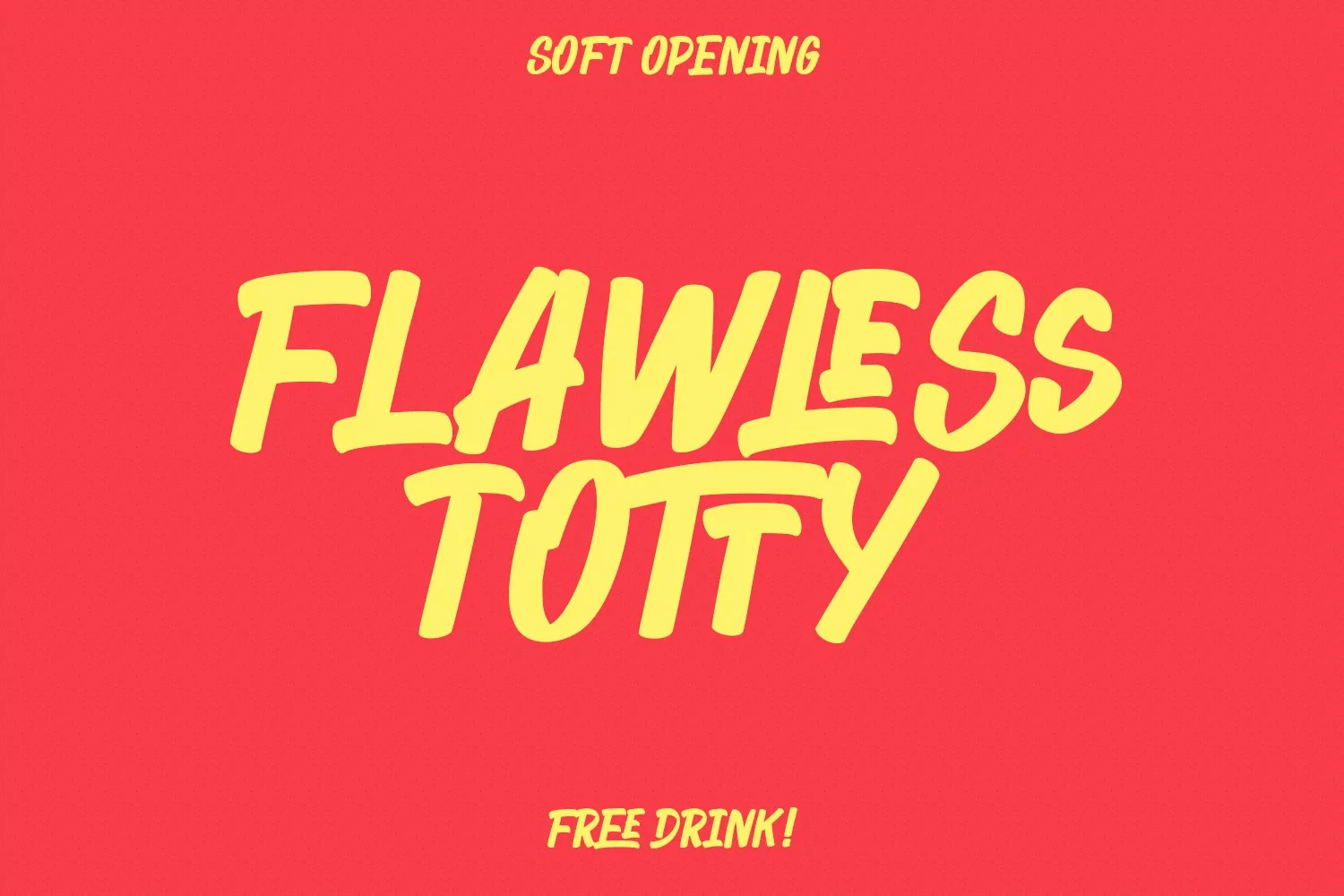
Feeltrips is an all caps handwritten display font. With bold stroke, italic and fun character with a bit of ligatures. To give you an extra creative work. Feeltrips font support multilingual more than 100+ language. This font is good for logo design, Social media, Movie Titles, Books Titles, a short text even a long text letter and good for your secondary text font with sans or serif. Make a stunning work with Feeltrips font.